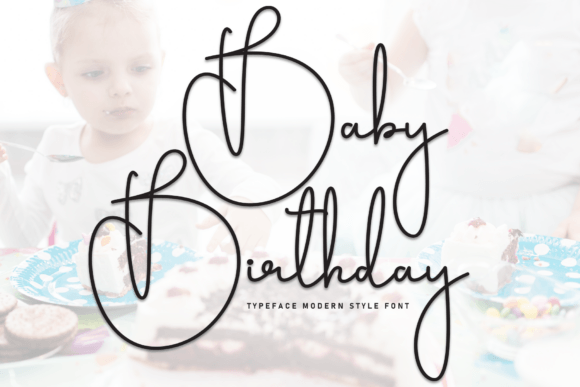
Adding a Touch of Whimsy to Your Designs Have you ever been brainstorming a new design project, flipping through a notebook filled with scribbled ideas and doodles, only to stumble upon a perfectly imperfect handwriting style that screams “me”? That’s exactly what happened to many designers when they discovered the Baby Party Font. 📸 Preview…